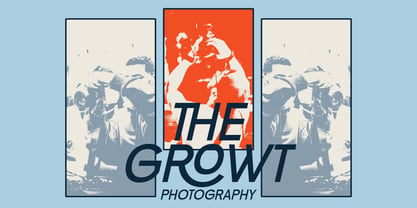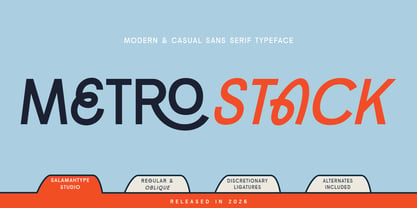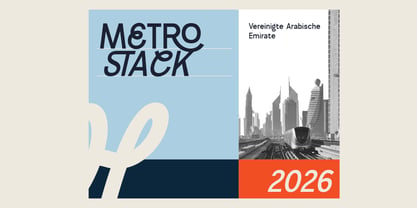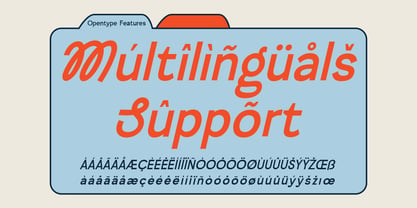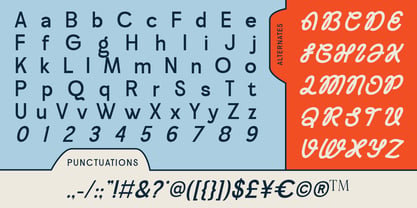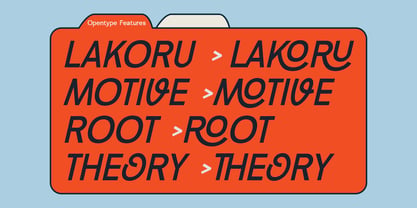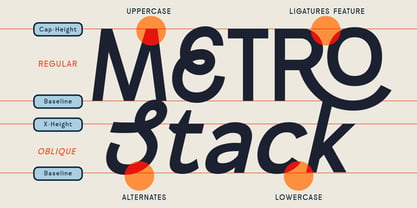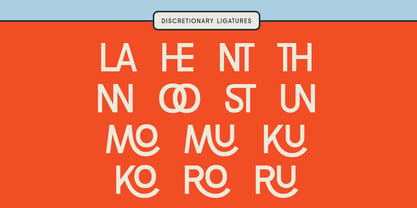
Metrostack
by Salamahtype
The Metrostack Font Family was designed by Aswangga Sadike and published by Salamahtype. Metrostack contains 2 styles and family package options. More about this family
Metrostack is a bold and unique sans serif typeface designed to bring a strong modern character to your creative projects. With its clean structure, distinctive letterforms, and stylish details, this font delivers a confident and eye-catching look while still feeling versatile and professional.
Featuring alternates and discretionary ligatures, Metrostack gives you more creative freedom for building standout logos, branding, posters, packaging, headlines, social media content, and editorial designs.
Perfect for designers who want a typeface that feels modern, powerful, and memorable without losing readability.
Features:
• Regular & Oblique Styles
• Stylish Alternates
• Discretionary Ligatures
• Uppercase & Lowercase
• Numbers & Punctuation
• Multilingual Support
Metrostack is a great choice for modern branding, urban visuals, fashion projects, creative campaigns, and bold typography layouts.
Designers: Aswangga Sadike
Foundry: Salamahtype